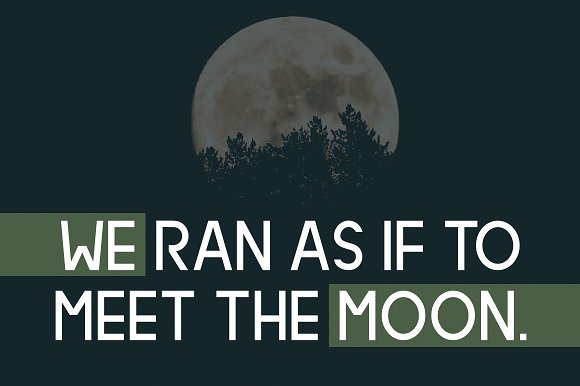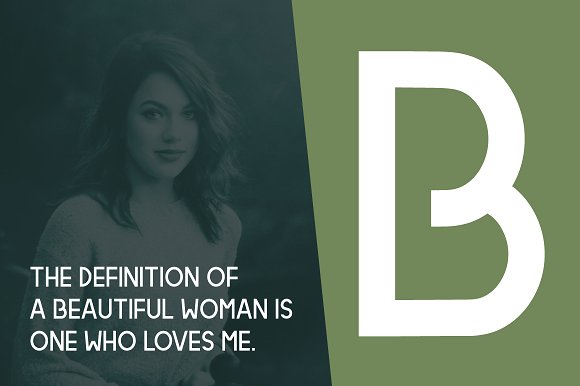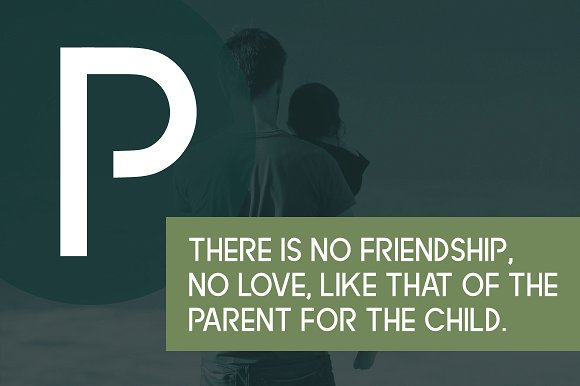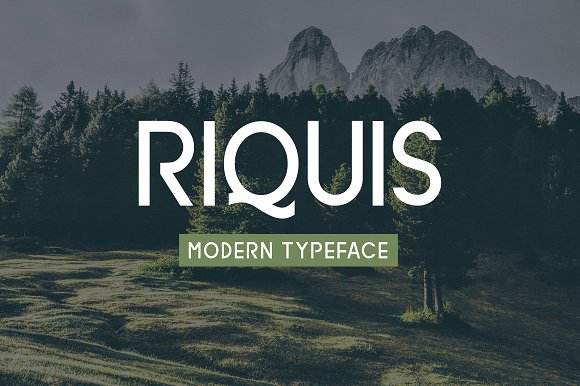
Riquis Typeface
Riquis is a brand new font. Riquis is perfectly suited for stationery, logos, t-shirt, paper, print design, website header, photo frame, flyer, music cover, poster, image slider and much more.